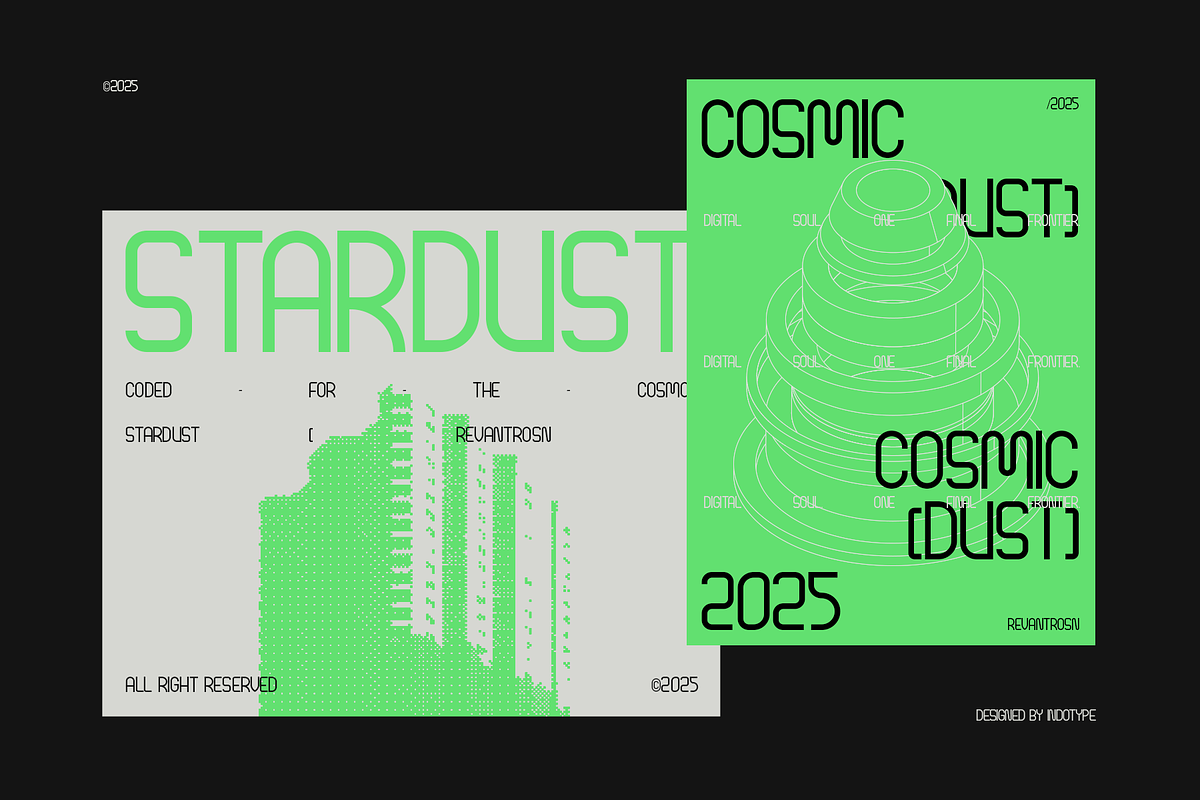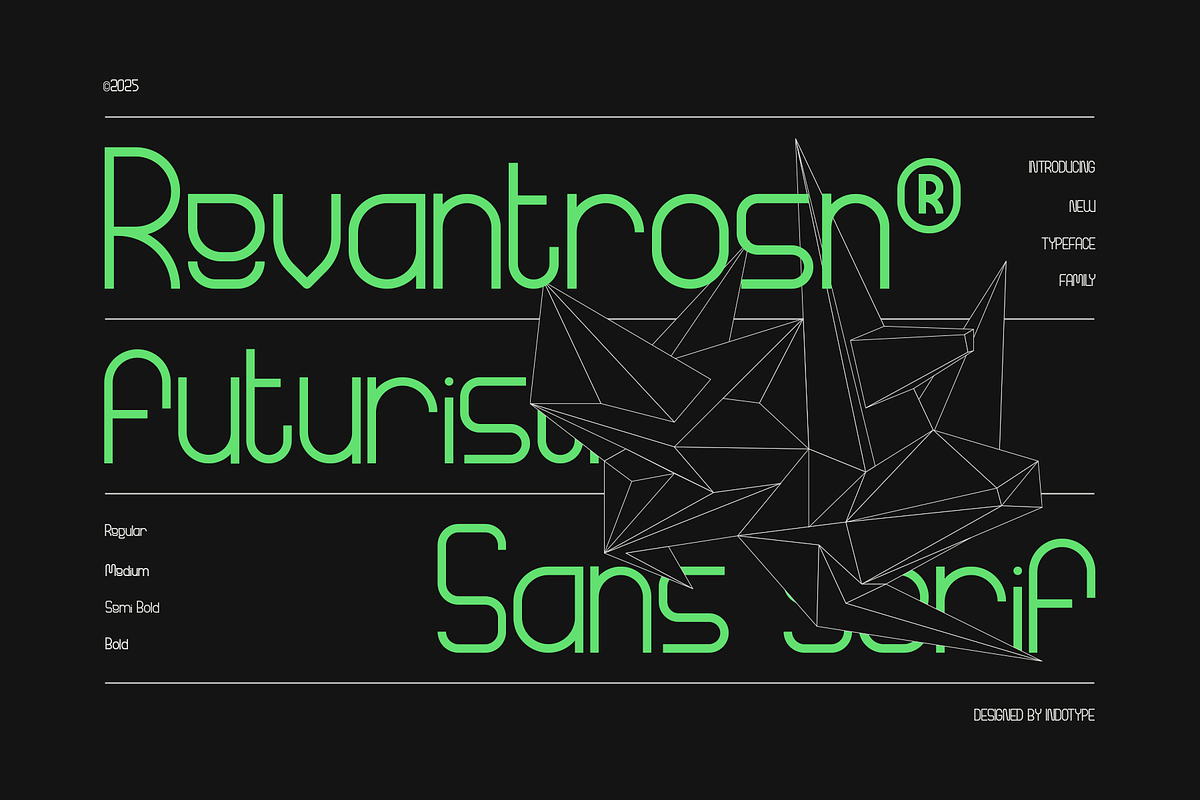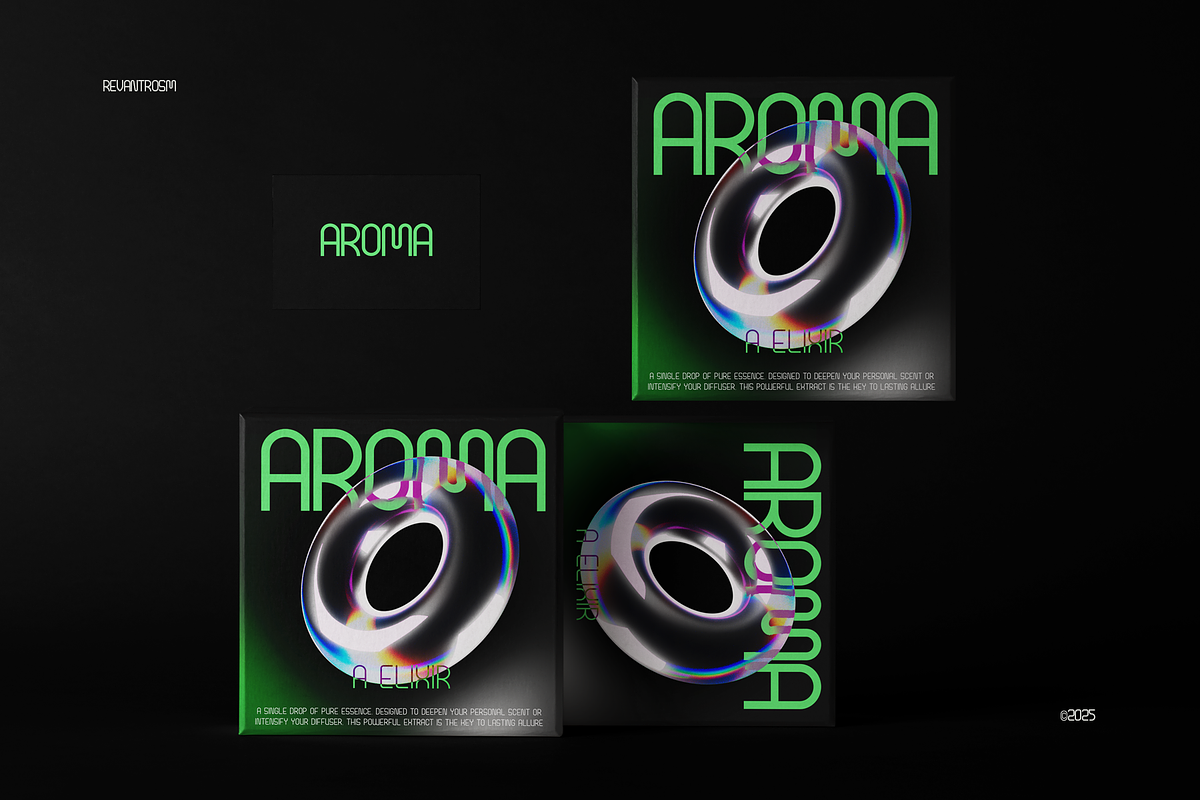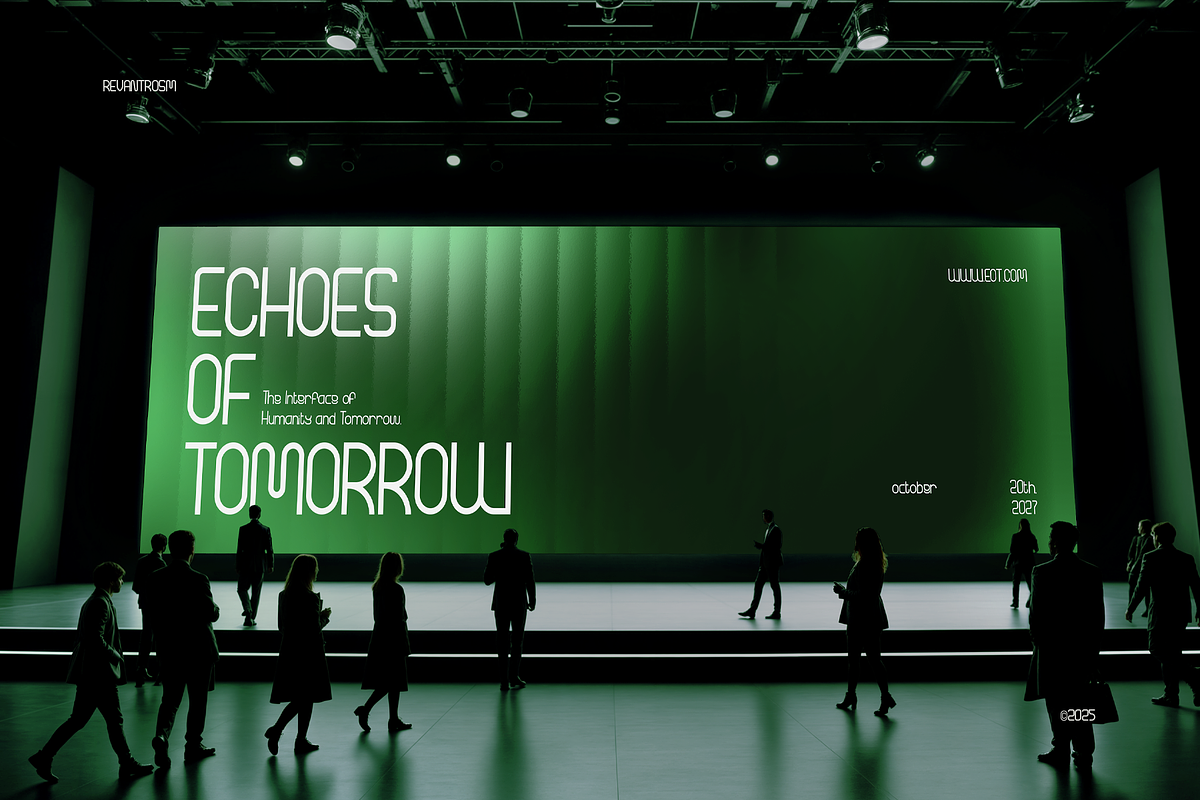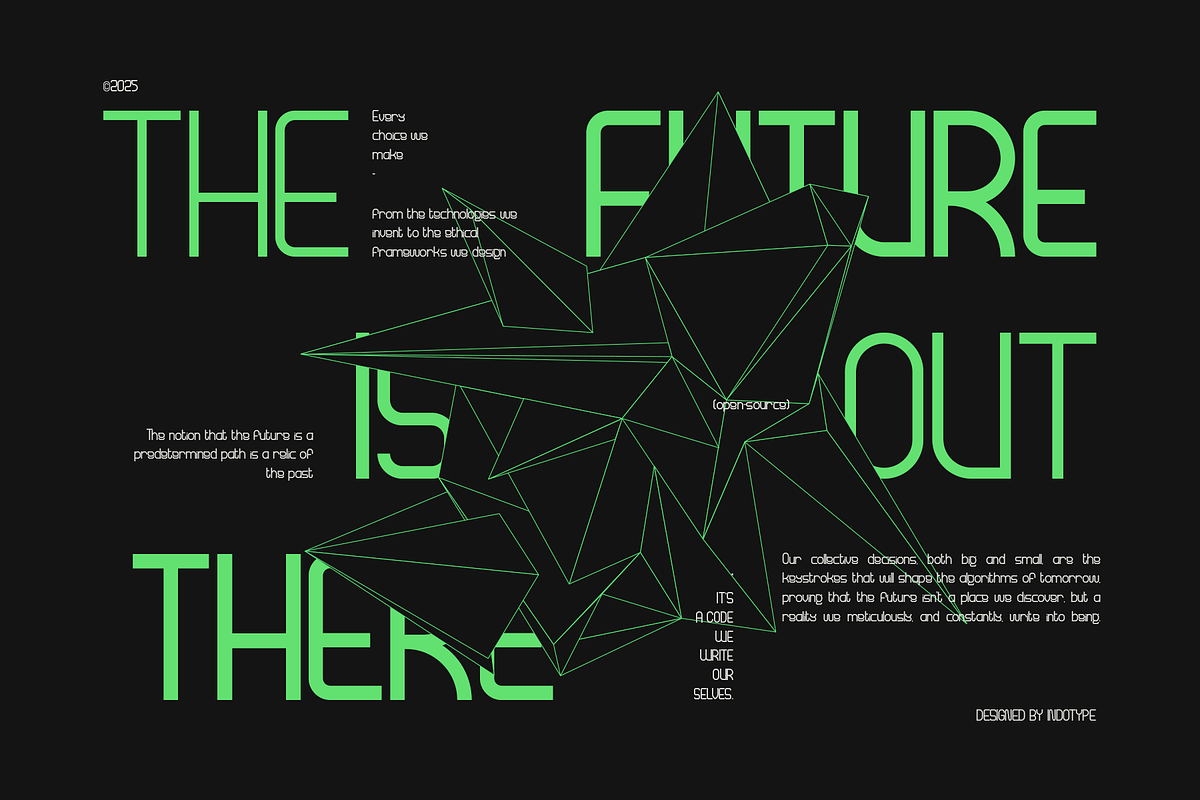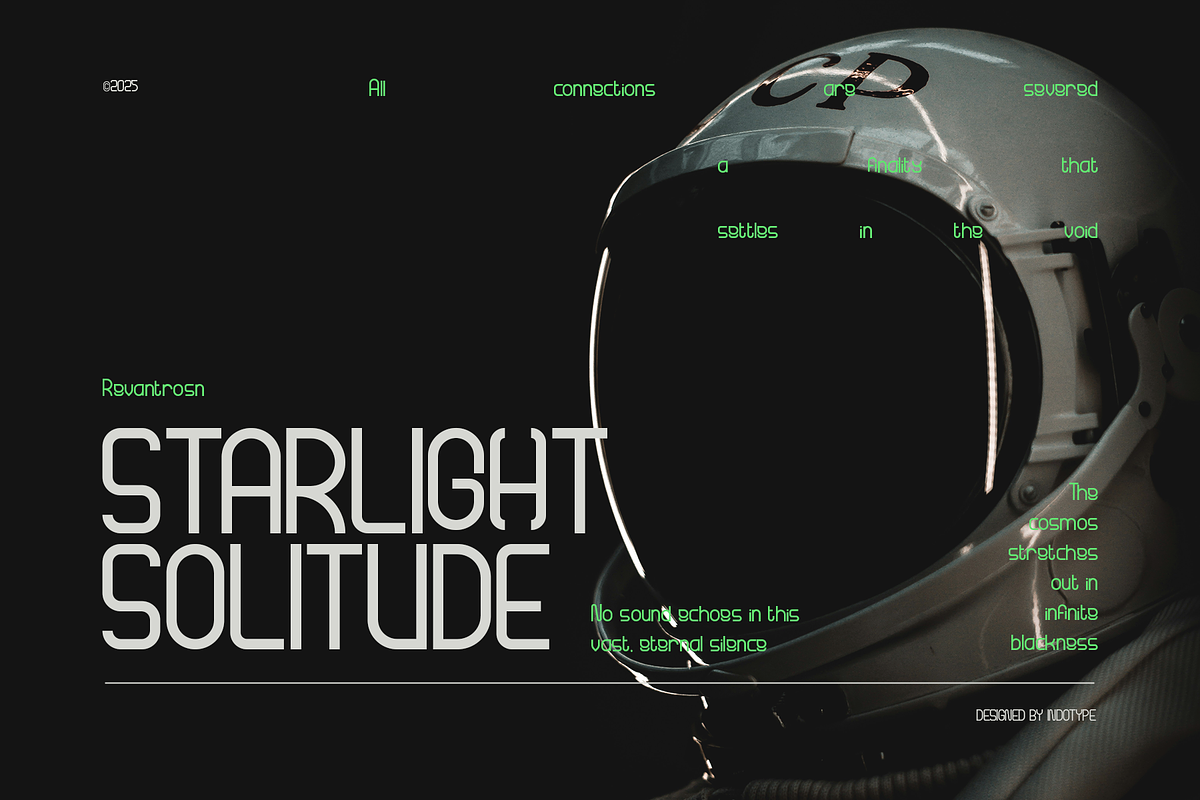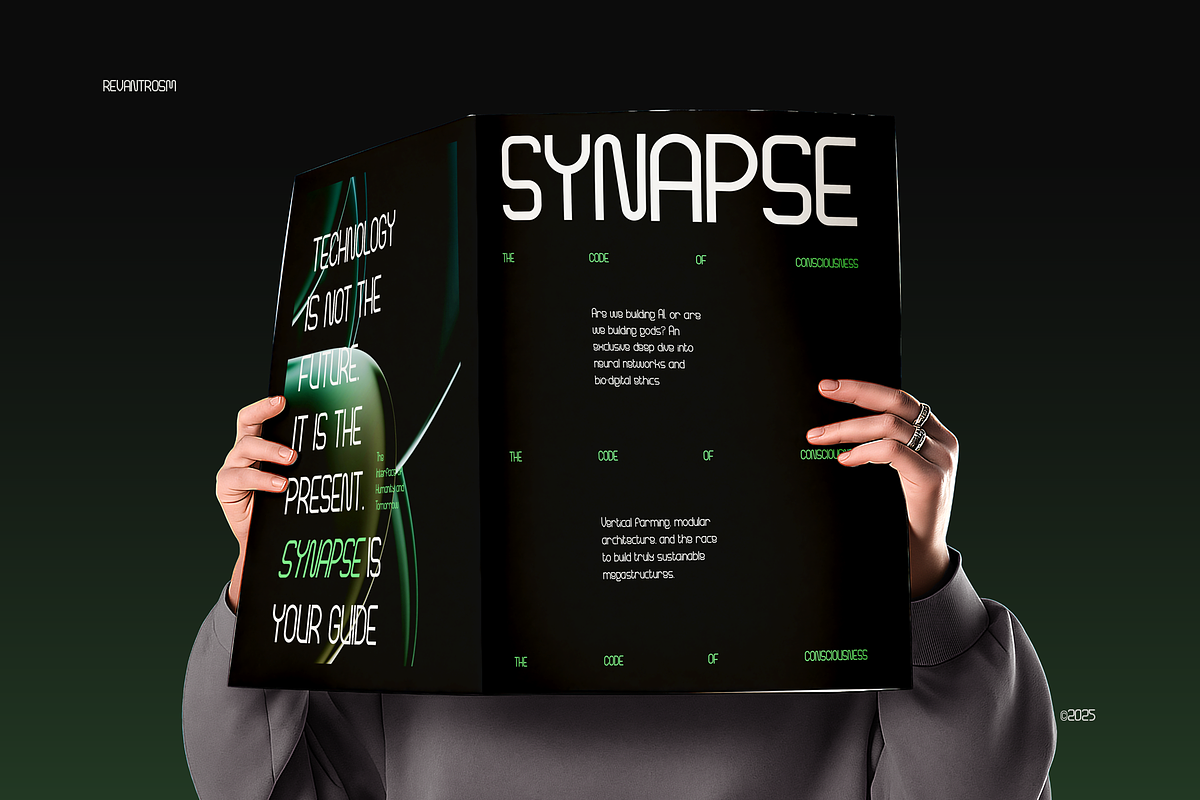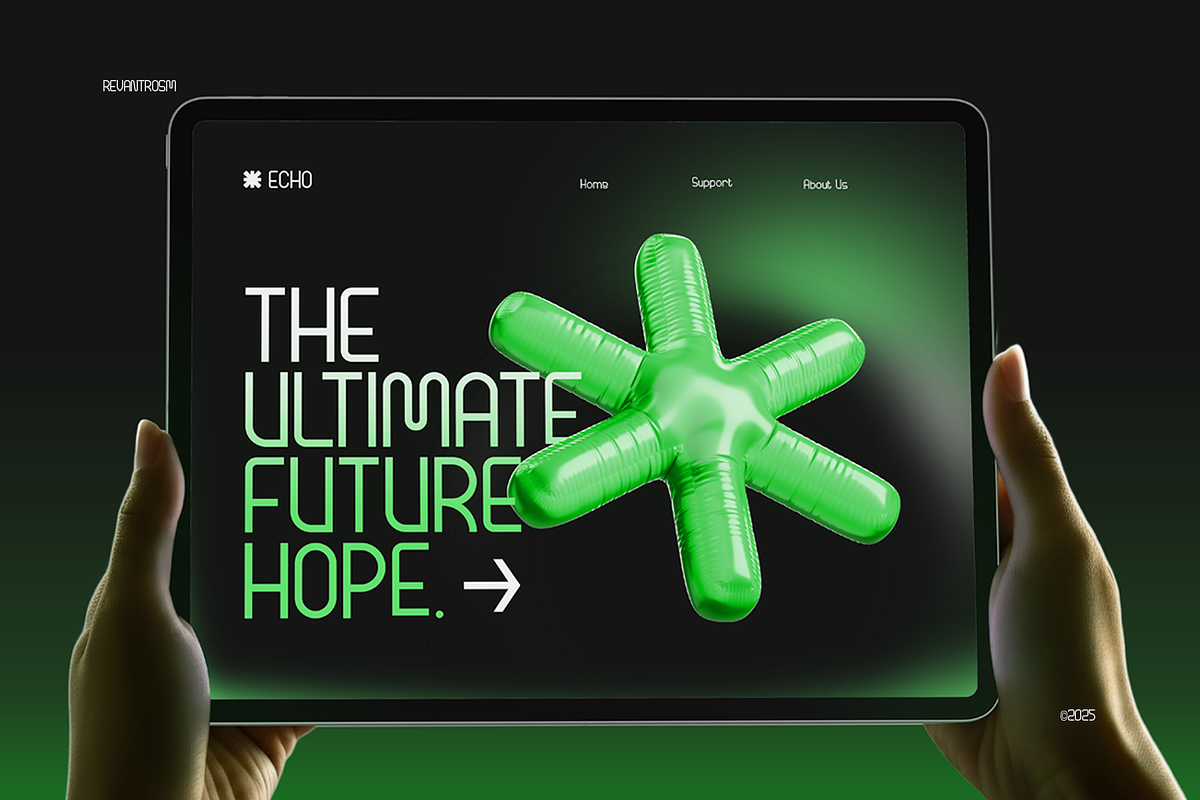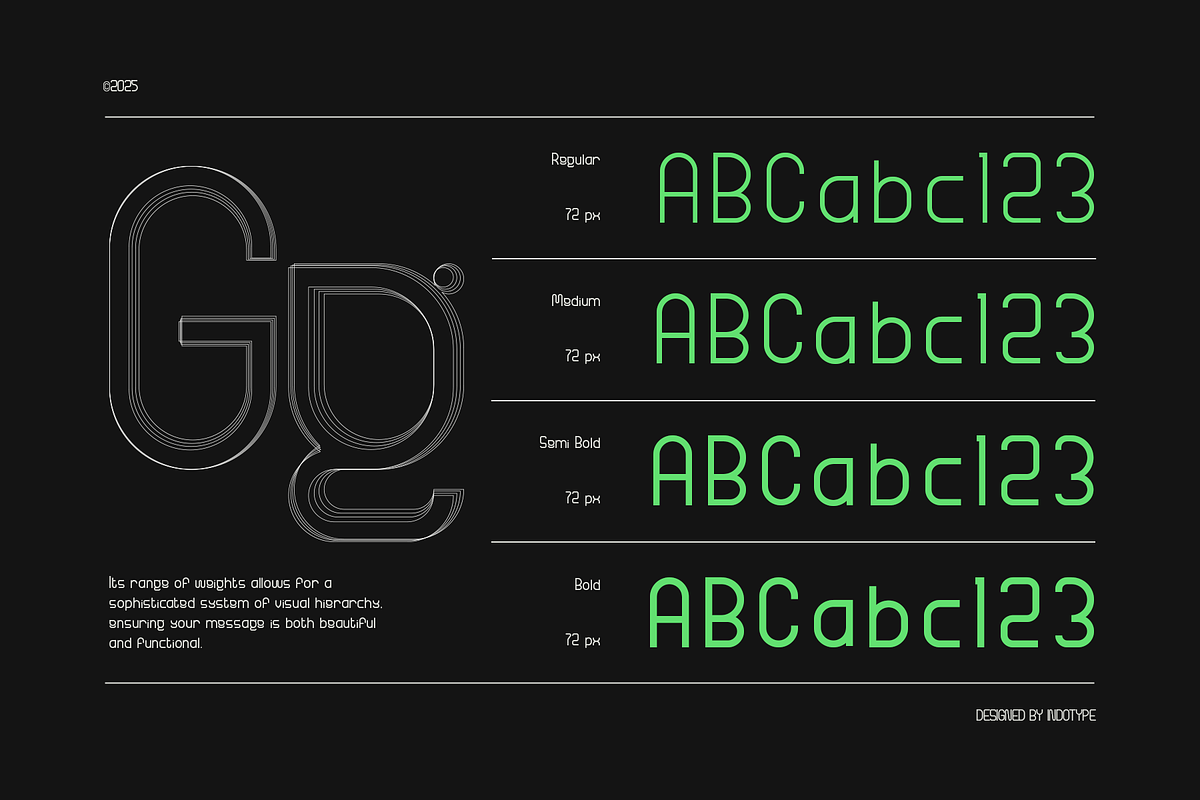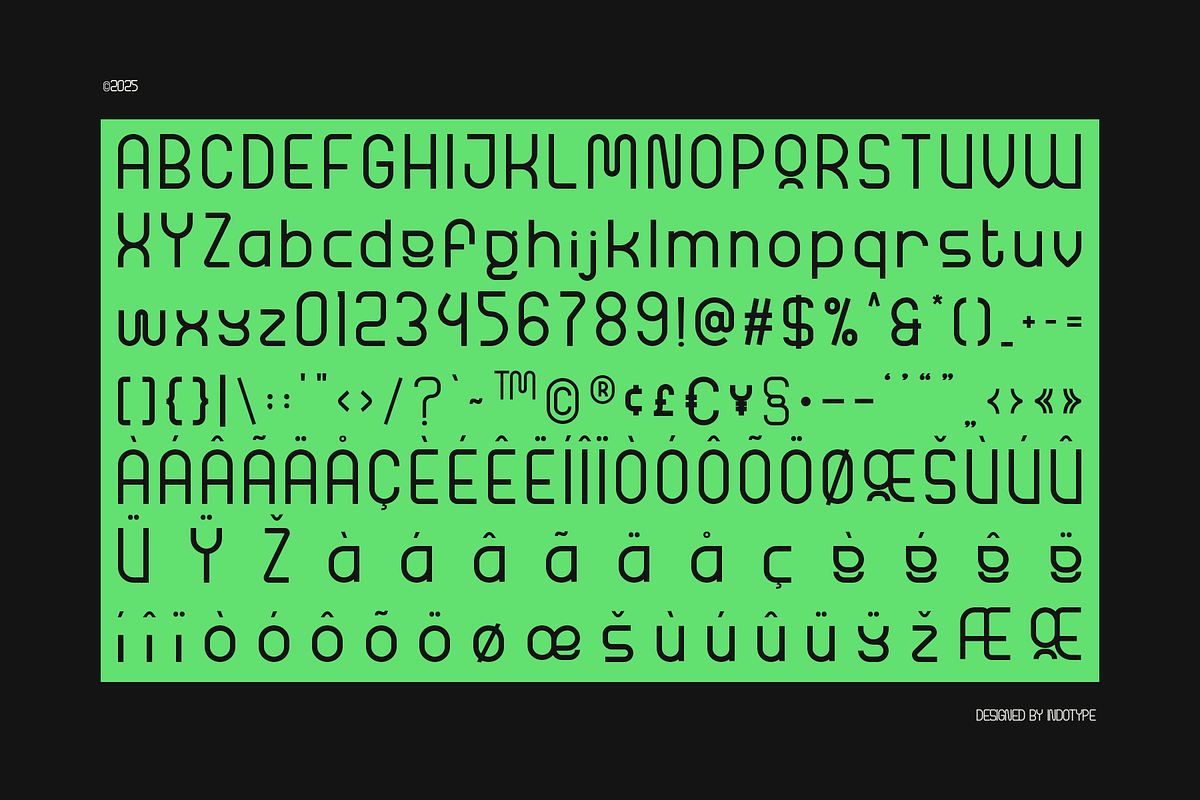
Revantrosn - Futuristic Sans Family
Revantrosn is a futuristic sans serif typeface designed to capture the spirit of innovation and precision. With its geometric construction, rounded terminals, and minimal stroke contrast, Revantrosn embodies a perfect fusion between modern technology and clean typographic structure. This typeface family includes Regular, Medium, Semi Bold, and Bold weights — offering flexibility for both digital and print projects. Every character is engineered with balanced proportions and forward-thinking shapes, making it ideal for UI design, sci-fi branding, esports identity, and modern editorial titles. Revantrosn’s sleek rhythm and contemporary presence create an aesthetic that feels cutting-edge yet approachable. Designed and published by Indotype in 2025, this font delivers both clarity and character — a vision of the future of sans serif design.